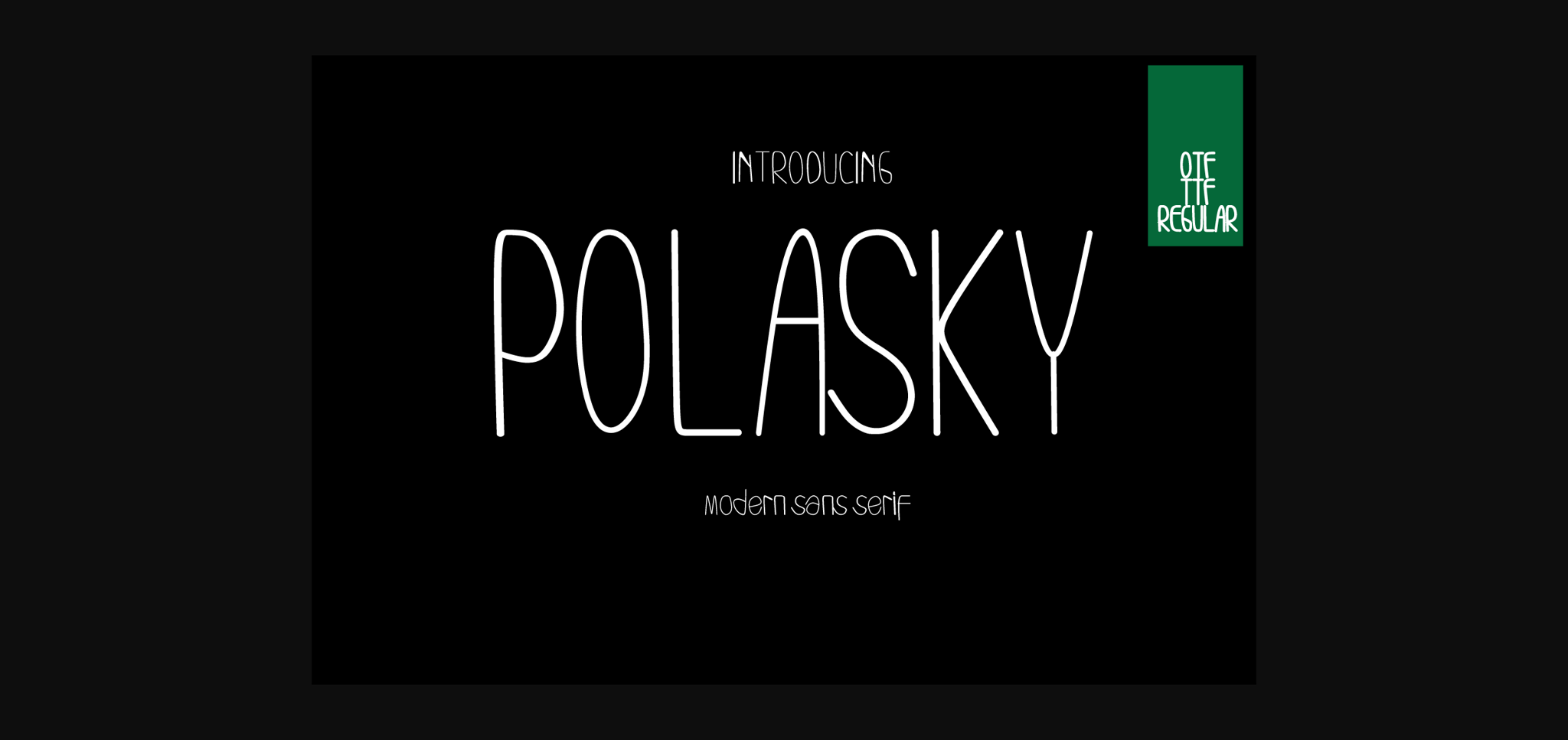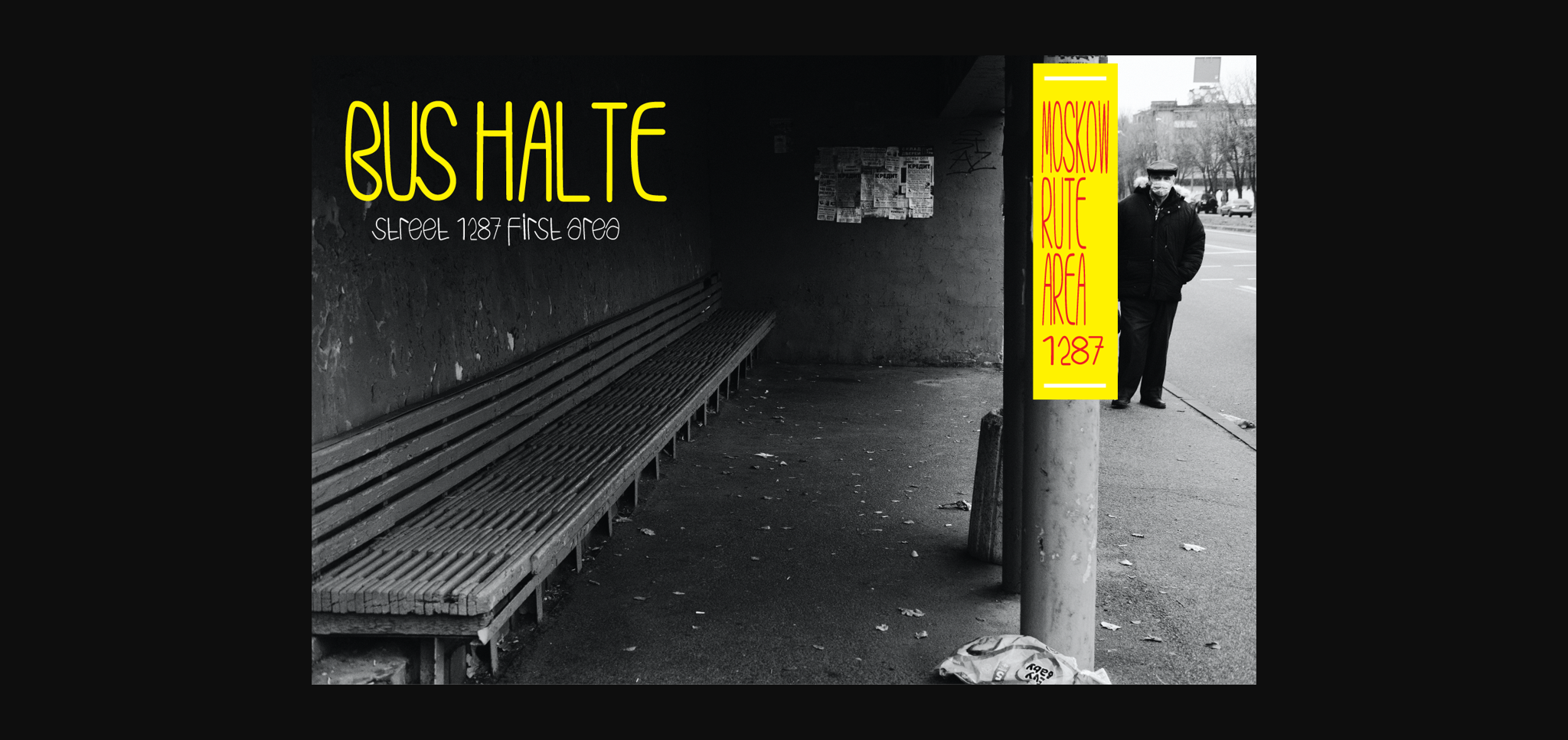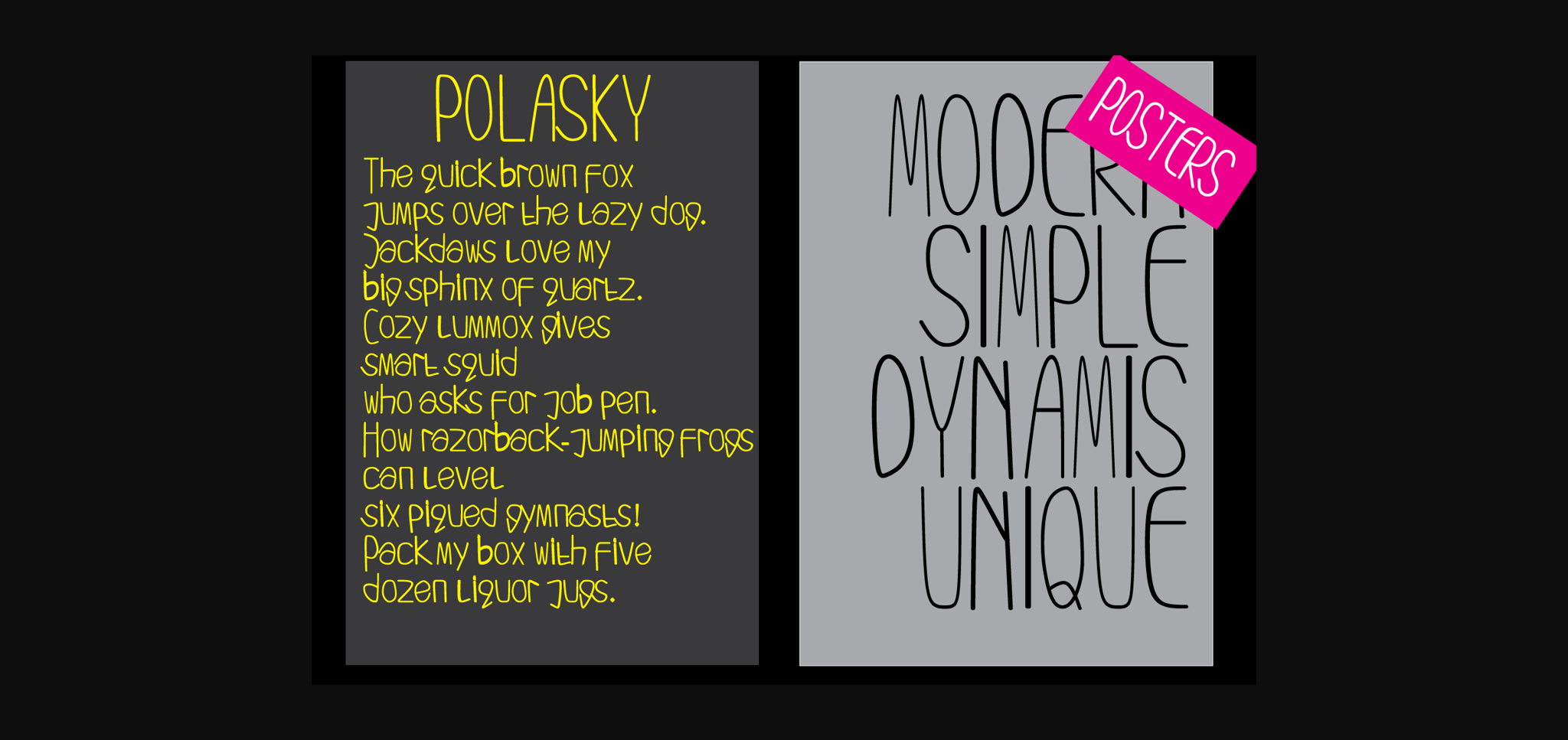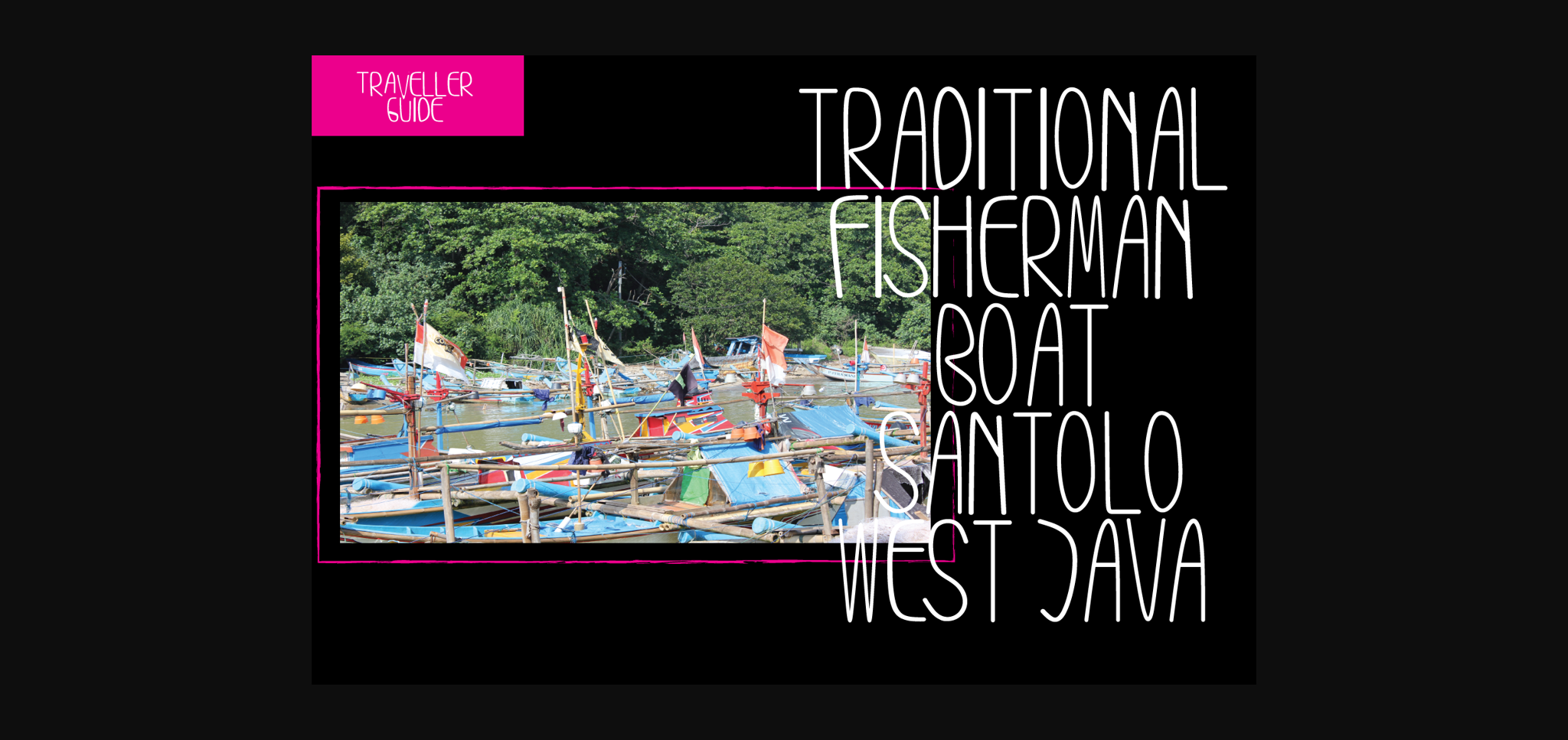
About Polasky Font
Polasky is a sans serif font with both handwritten and modern curves that gives it an authentic feel. For those of you who are needing a touch of elegant, stylish, classy, chic, and modernity for your designs, this font was created for you!